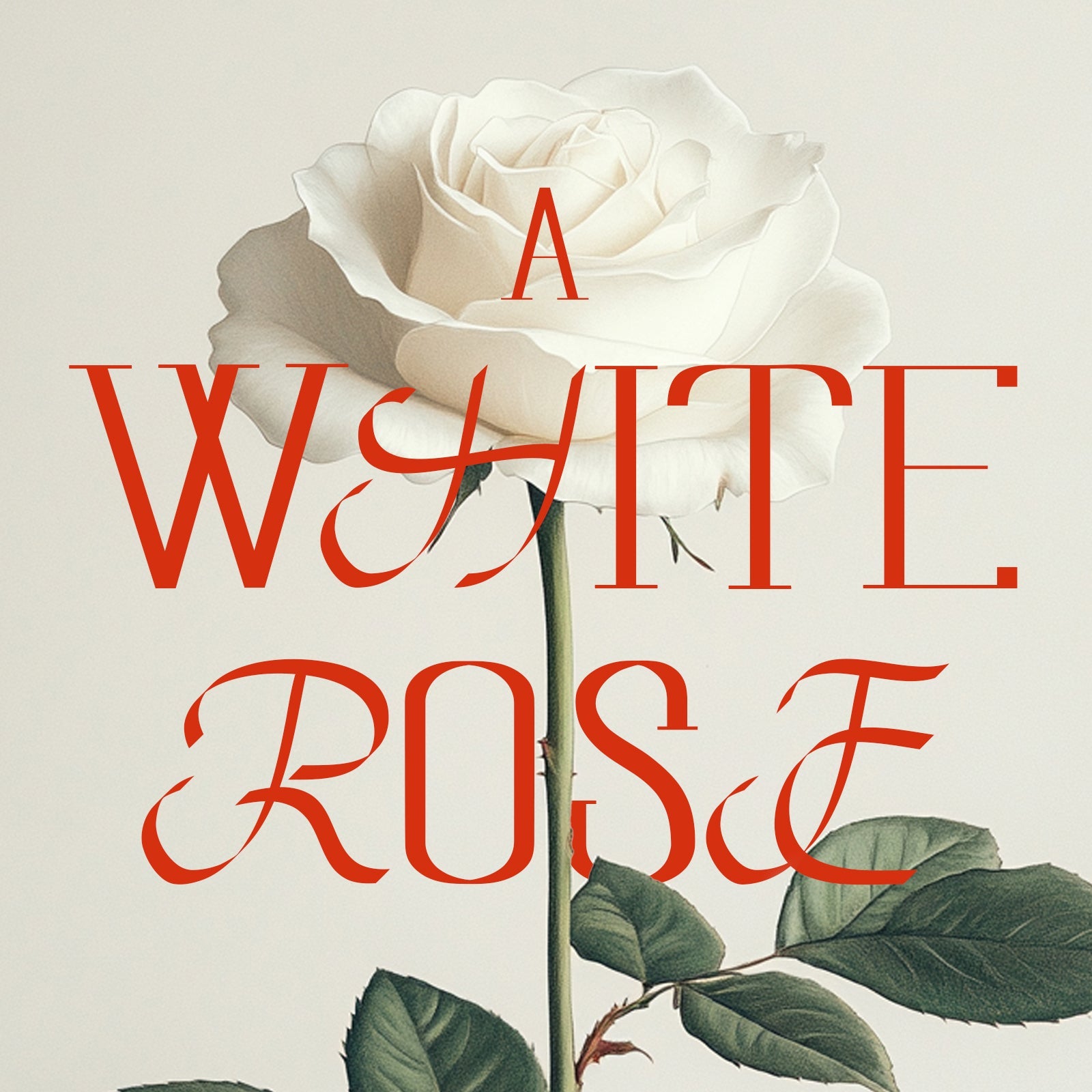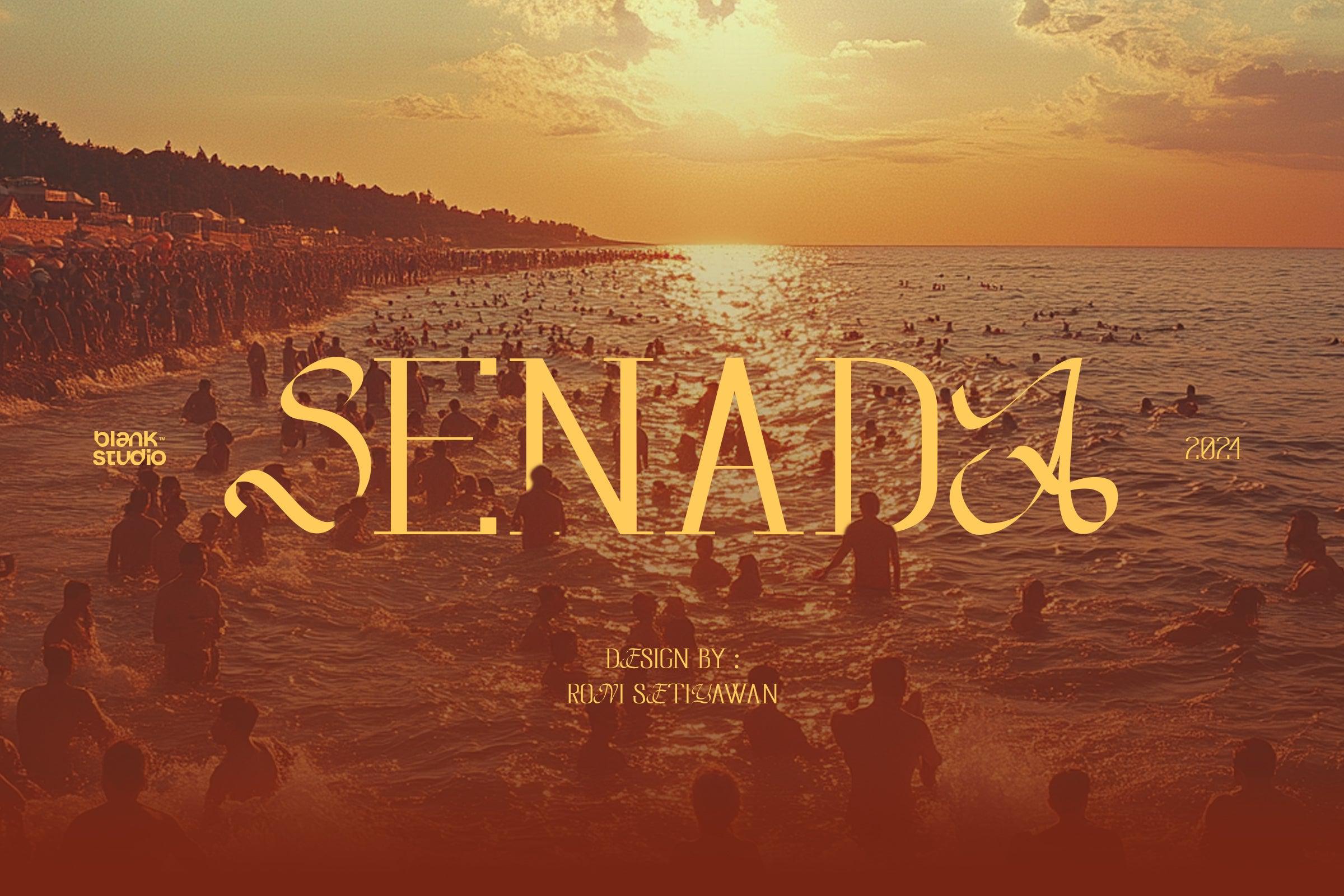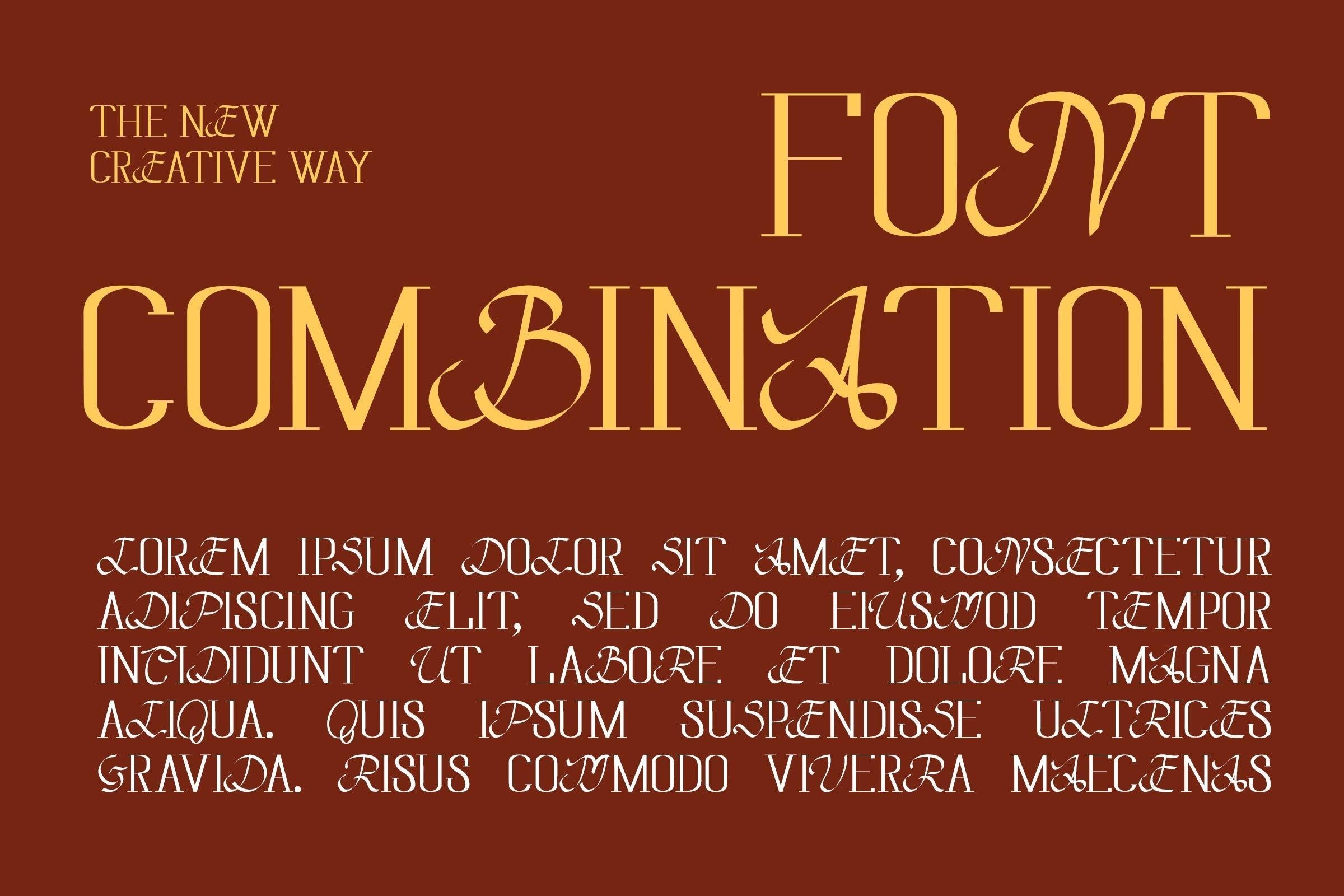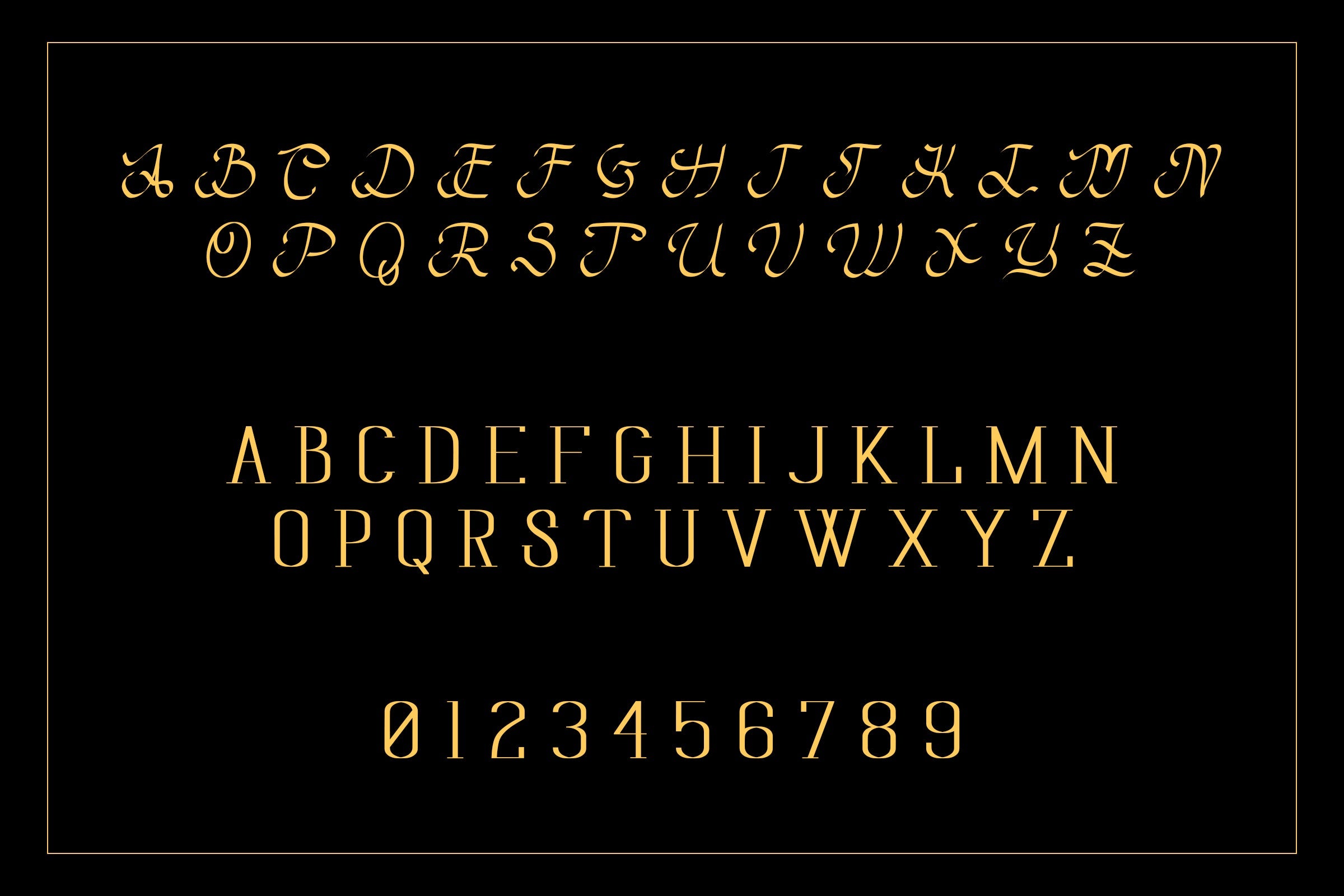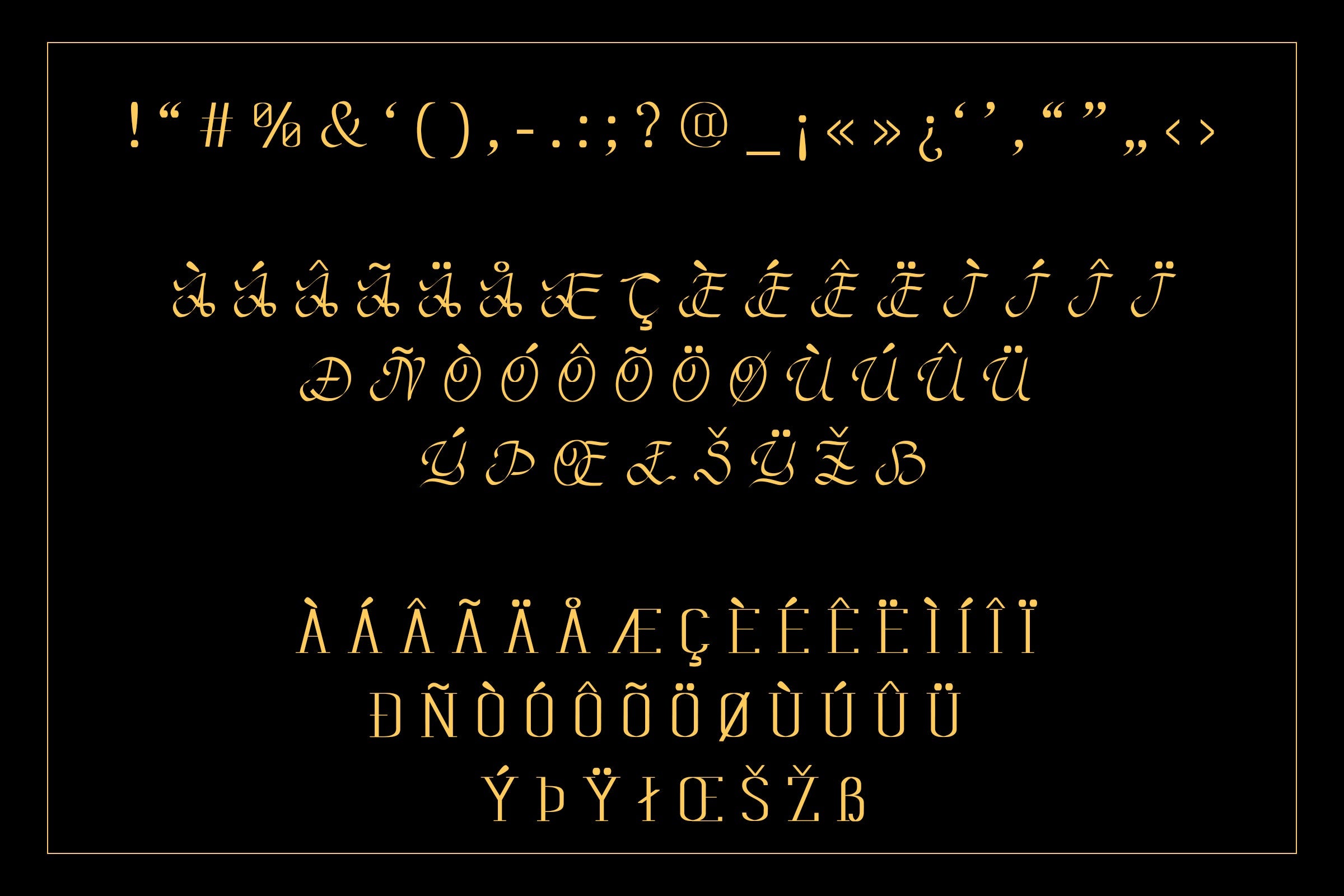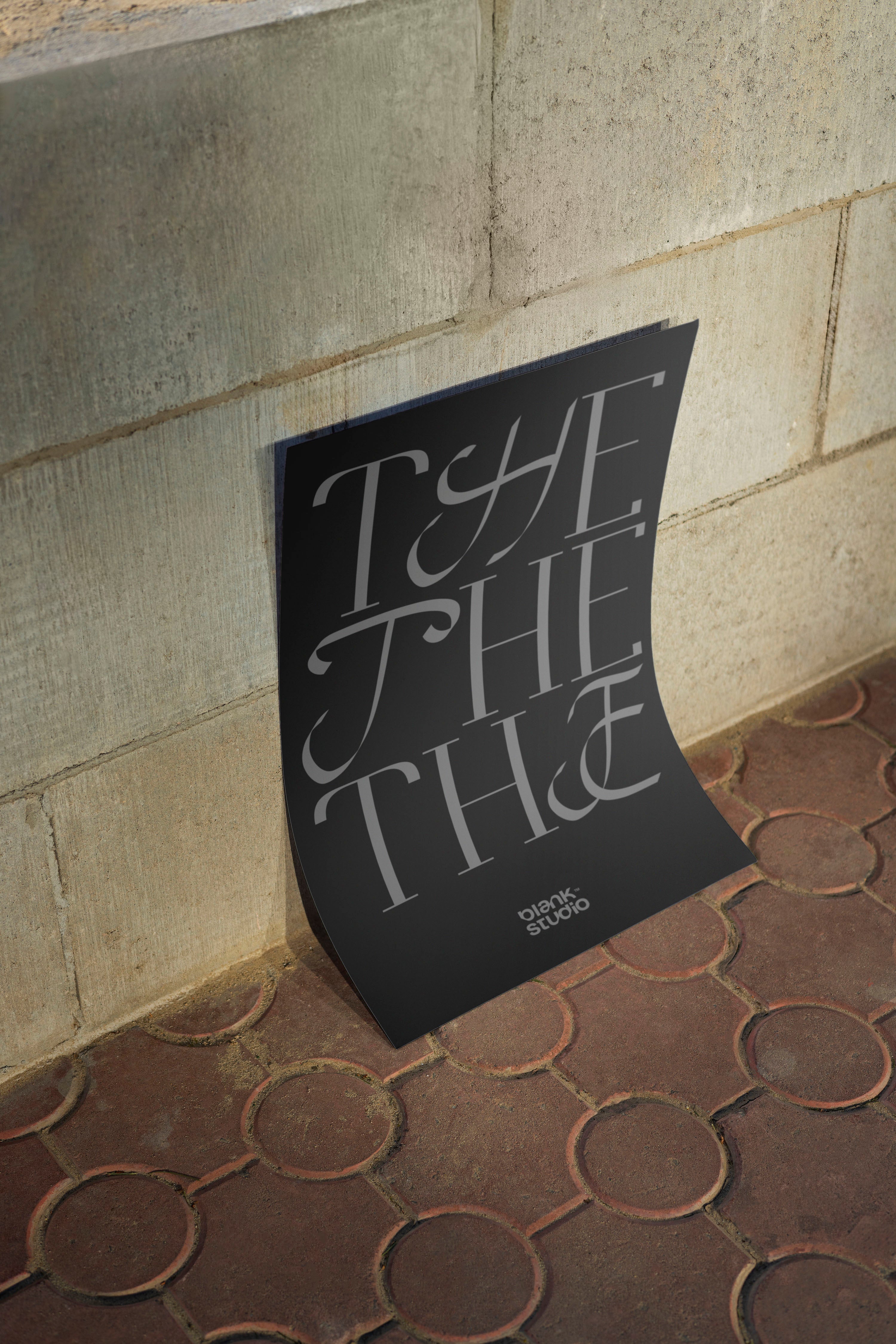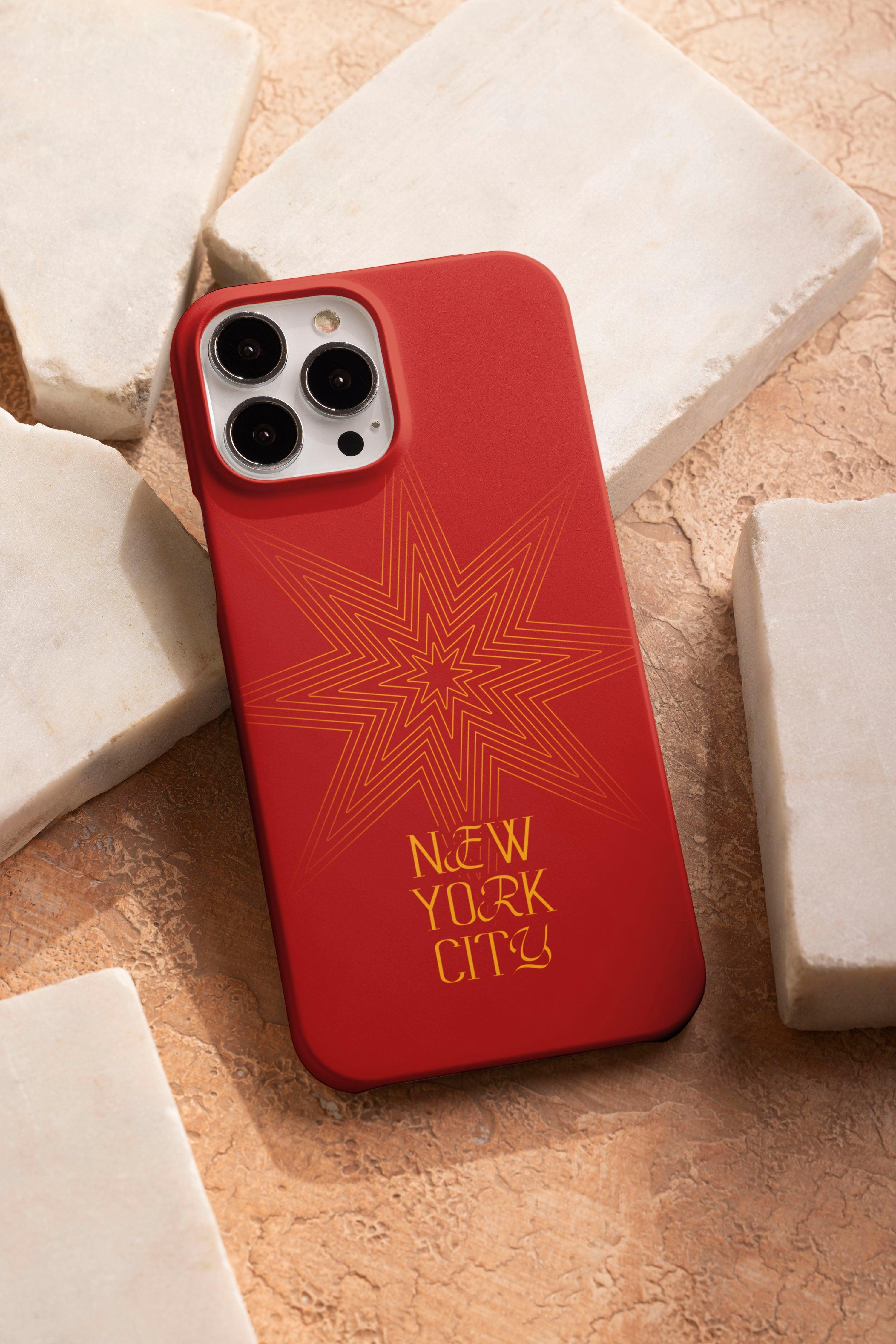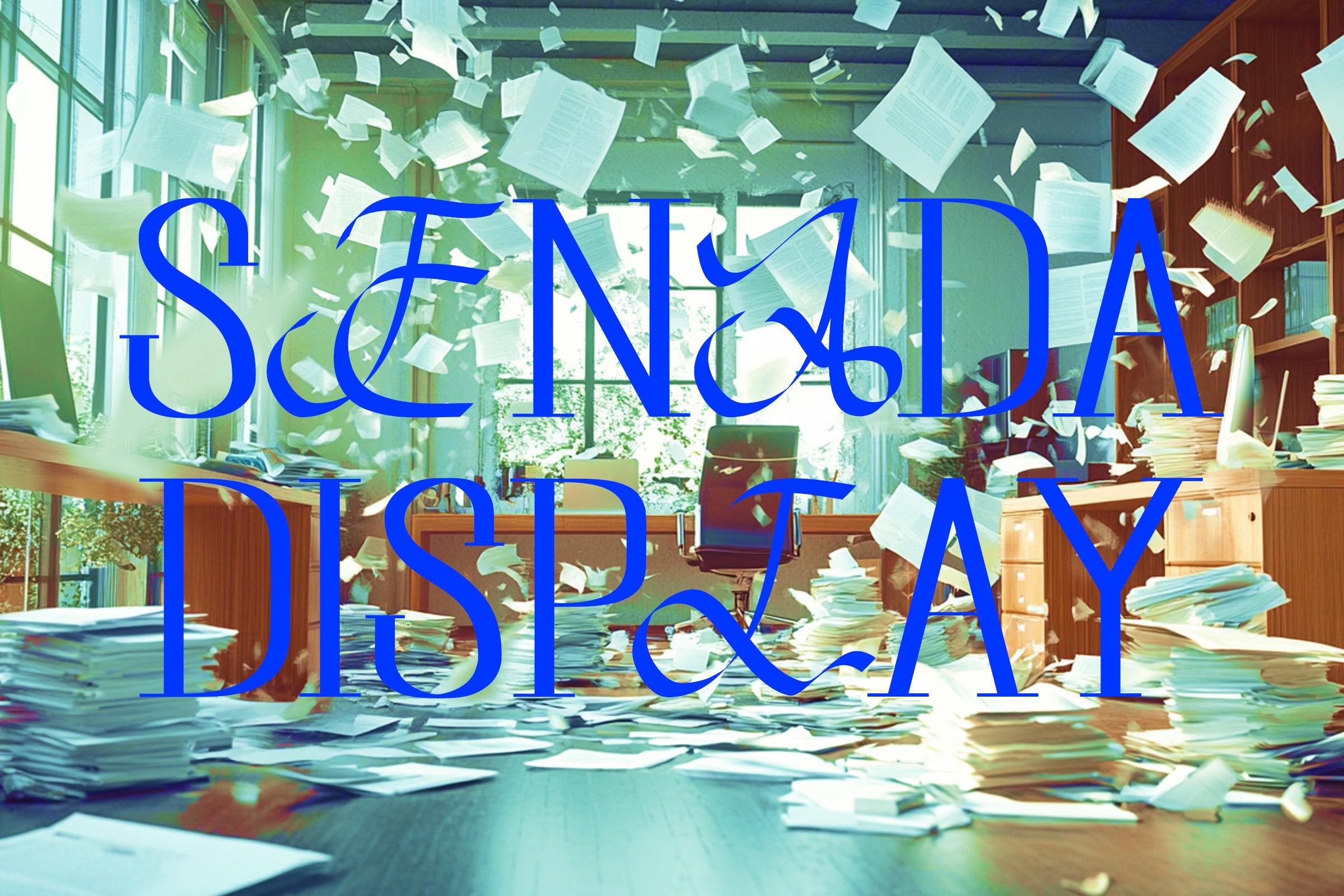
Senada Display Font
Senada is an elegant and sophisticated typeface that seamlessly blends classic serif forms with flowing script elements. The combination creates a harmonious balance between structure and artistry, making it perfect for designs that require a touch of refinement and creativity.
With its clean, geometric serifs and graceful, calligraphic swashes, Senada exudes timeless beauty and versatility. Ideal for branding, editorial projects, packaging, or event invitations, this typeface captures attention with its unique pairing of boldness and delicacy. Whether used in bold headlines or subtle accents, Senada adds a distinct charm and a sense of cohesion to any visual project.
The Senada Display Font is an elegant typeface that blends classic serif forms with flowing script elements. It offers a unique pairing of boldness and delicacy, making it suitable for a variety of design projects.